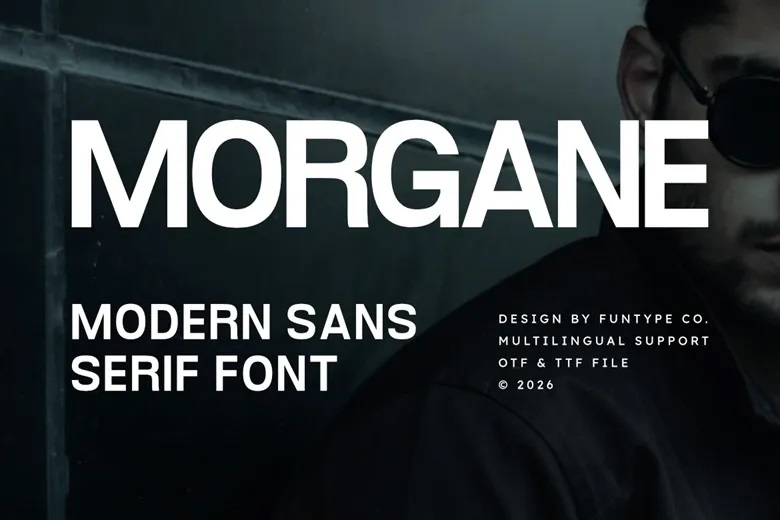
Morgane Font
Morgane is a bold, modern sans serif font designed for clear, impactful typography. Its solid structure and clean, geometric lines work well for headlines, corporate branding, fashion logos, and digital posters. The balanced design helps your visuals look strong and professional.
Morgane Sans Serif Font